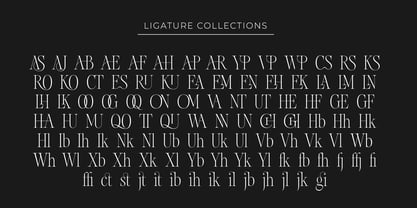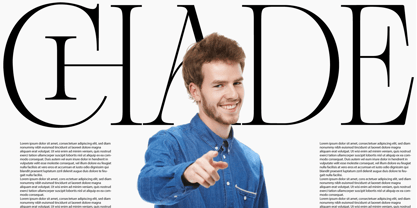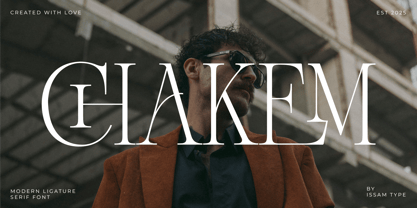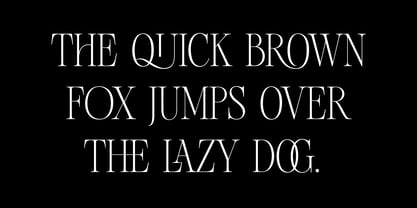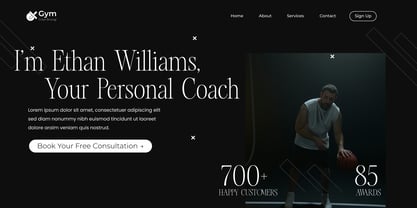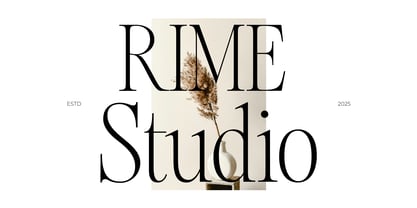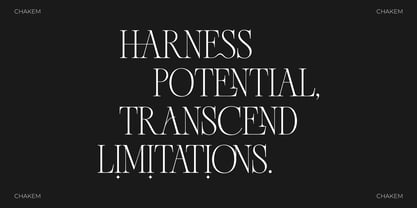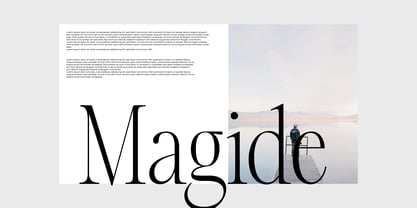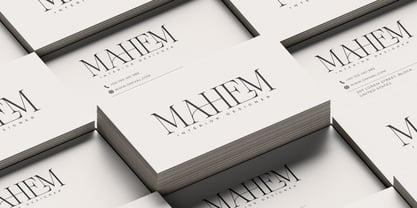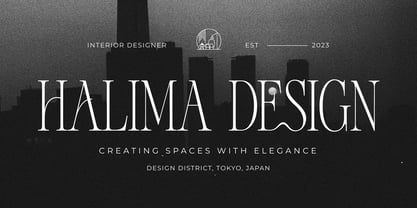
Chakem
by Issam Type
The Chakem Font Family was designed by Issam Boufelja and published by Issam Type. Chakem contains 4 styles and family package options. More about this family
Chakem – Modern Ligature Serif Font
Chakem is a modern serif typeface that blends sharp elegance with creative ligature design. Available in Regular, Rounded, Condensed, and Rounded Condensed styles, Chakem is versatile and stylish—ideal for fashion branding, headlines, magazines, packaging, and more.
Chakem includes uppercase letters, numbers, punctuation, beautiful ligatures, alternates, and multilingual support—everything you need to elevate your design work.